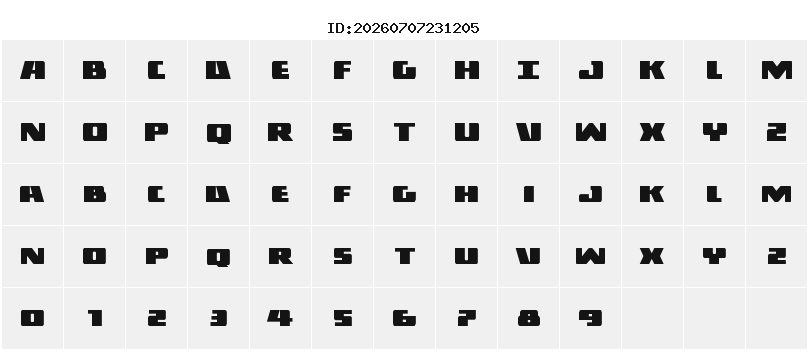
• Font Name: Dark Alliance Expanded
• Font Style: Expanded
About Dark Alliance Expanded.ttf
Dark Alliance Expanded.ttf is a modern, elegant sans-serif font designed for ultimate readability and visual harmony. Perfect for branding, headlines, web design, and print materials.